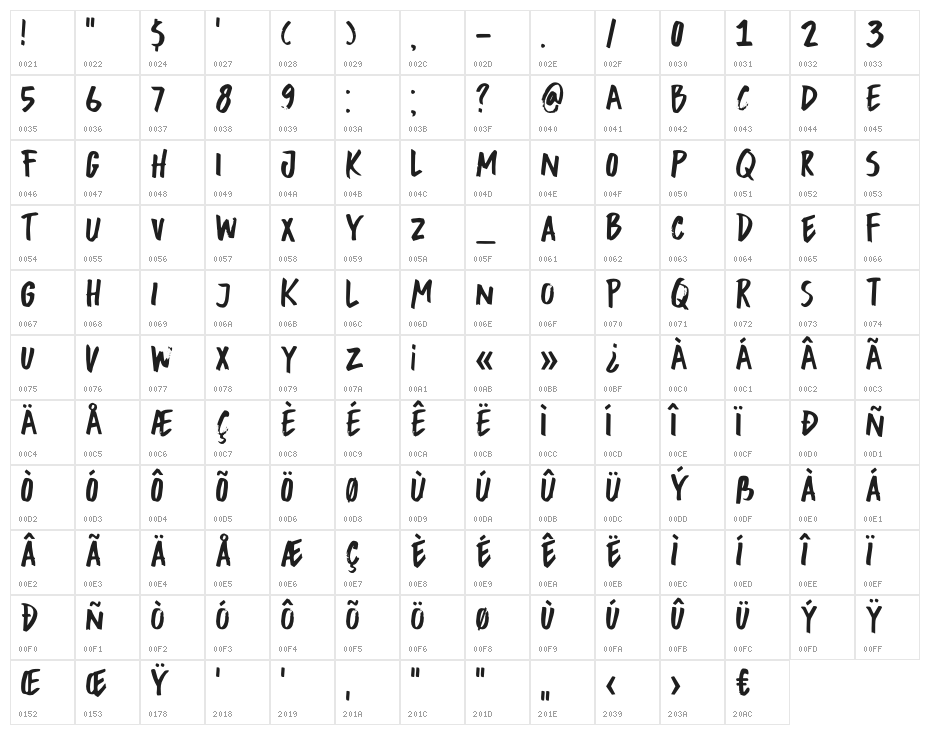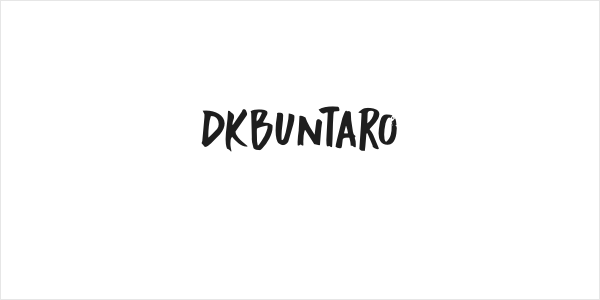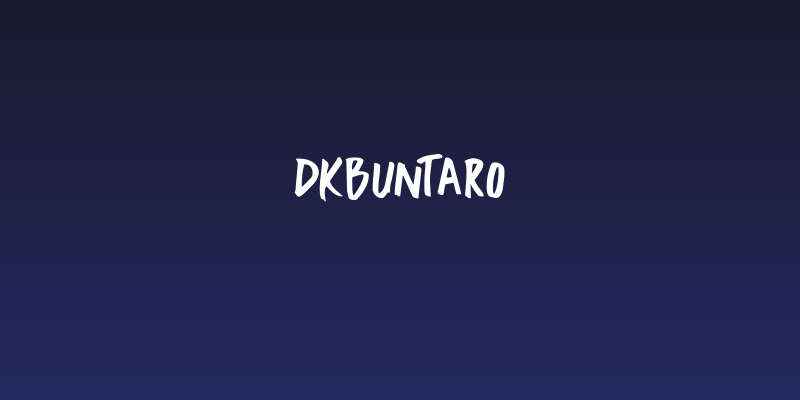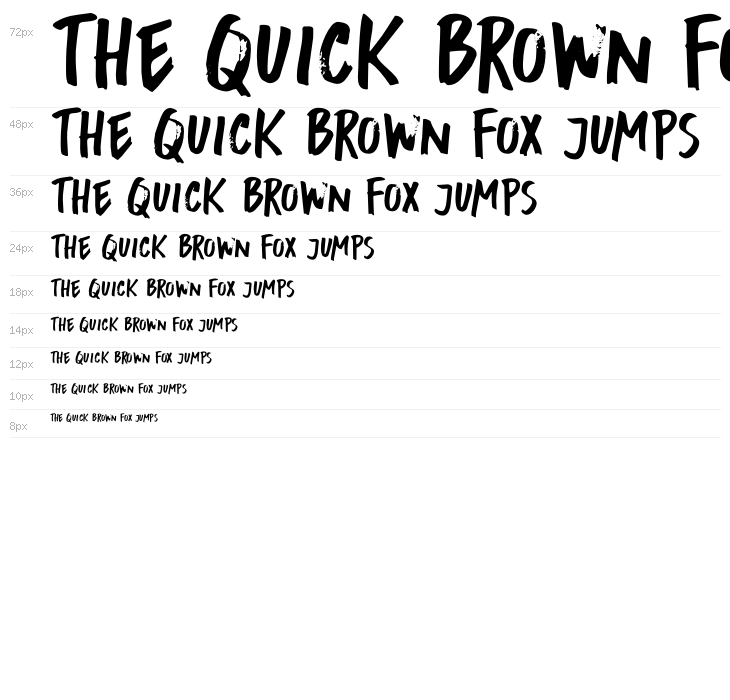
DKBuntaro Font
DKBuntaro Description
This font features a bold and expressive style with a hand-painted appearance. The characters are uneven and slightly rough around the edges, giving them a dynamic and energetic feel. The uppercase and lowercase letters maintain a consistent height, while the numbers and special characters integrate seamlessly with the overall design. The font's brush-like strokes and irregularities add a sense of movement and creativity, making it ideal for projects that require a bold and artistic touch.
| Overall Style | Artistic, Energetic |
| Use Case | Headlines, Posters, Branding |
| Proposed Projects | Ideal for posters, album covers, artistic branding, and creative advertising. |